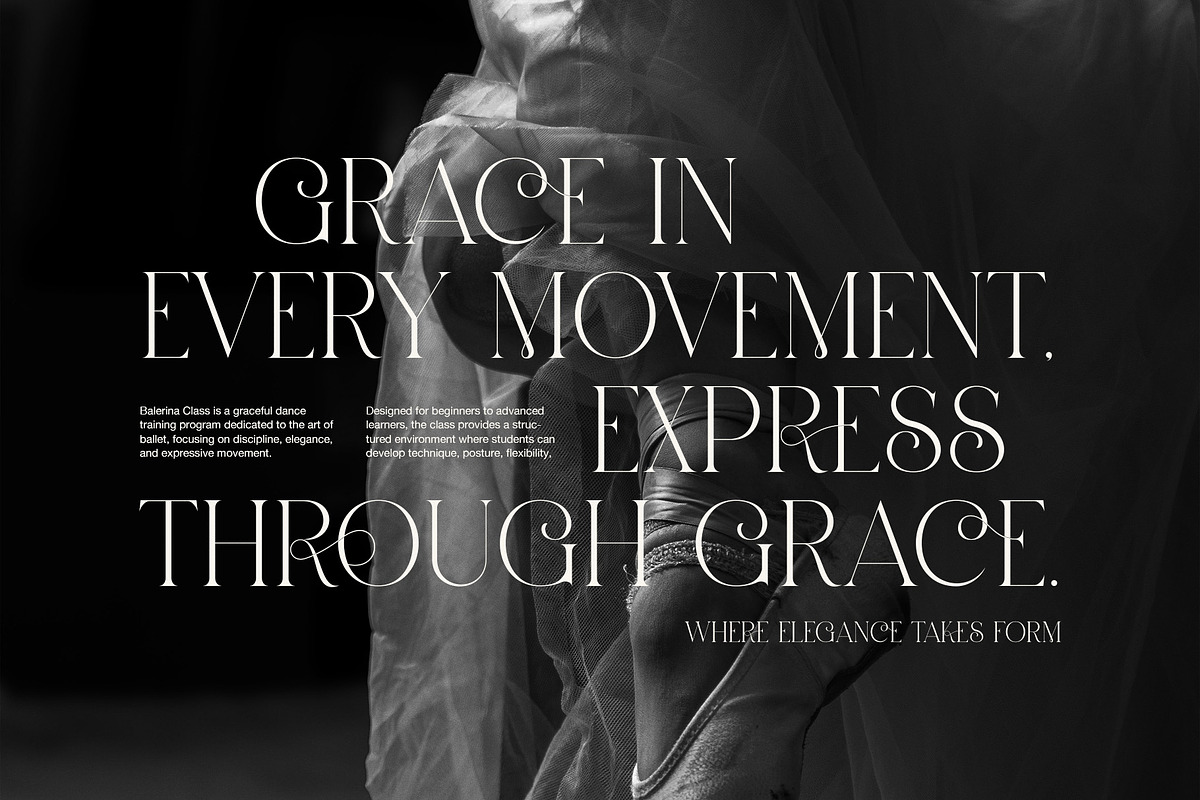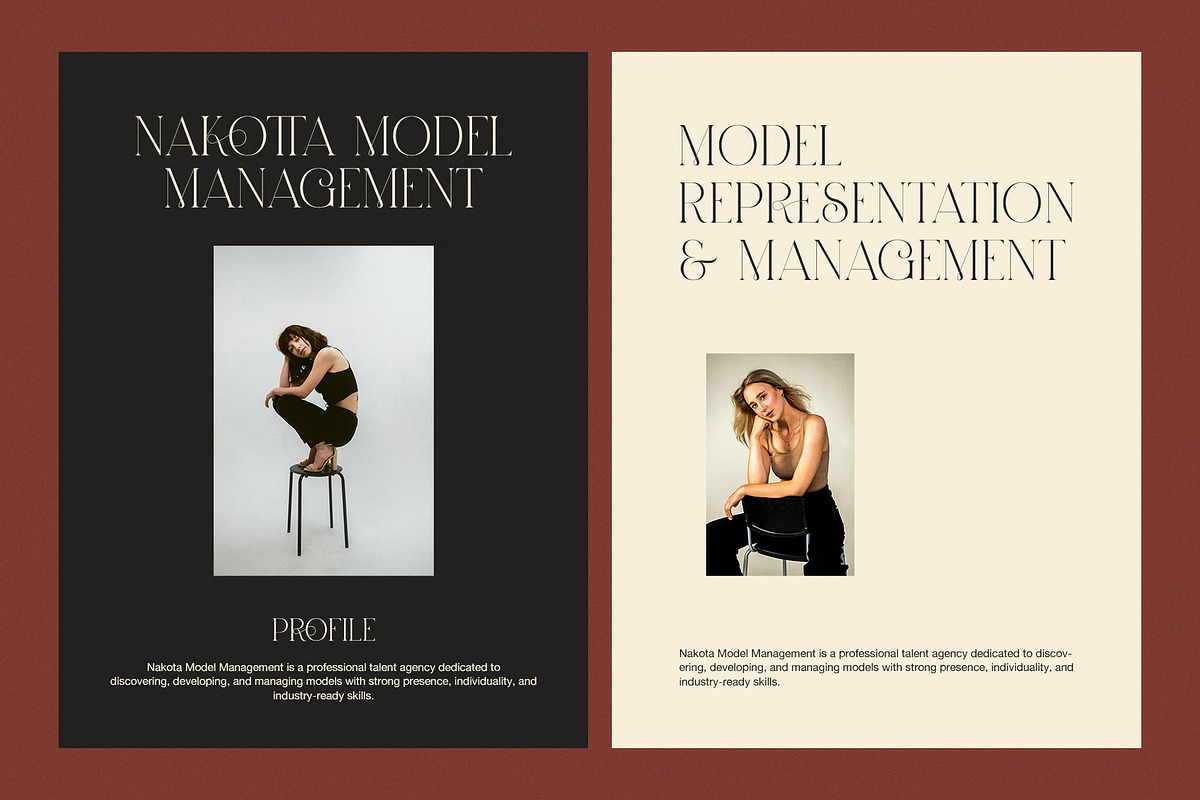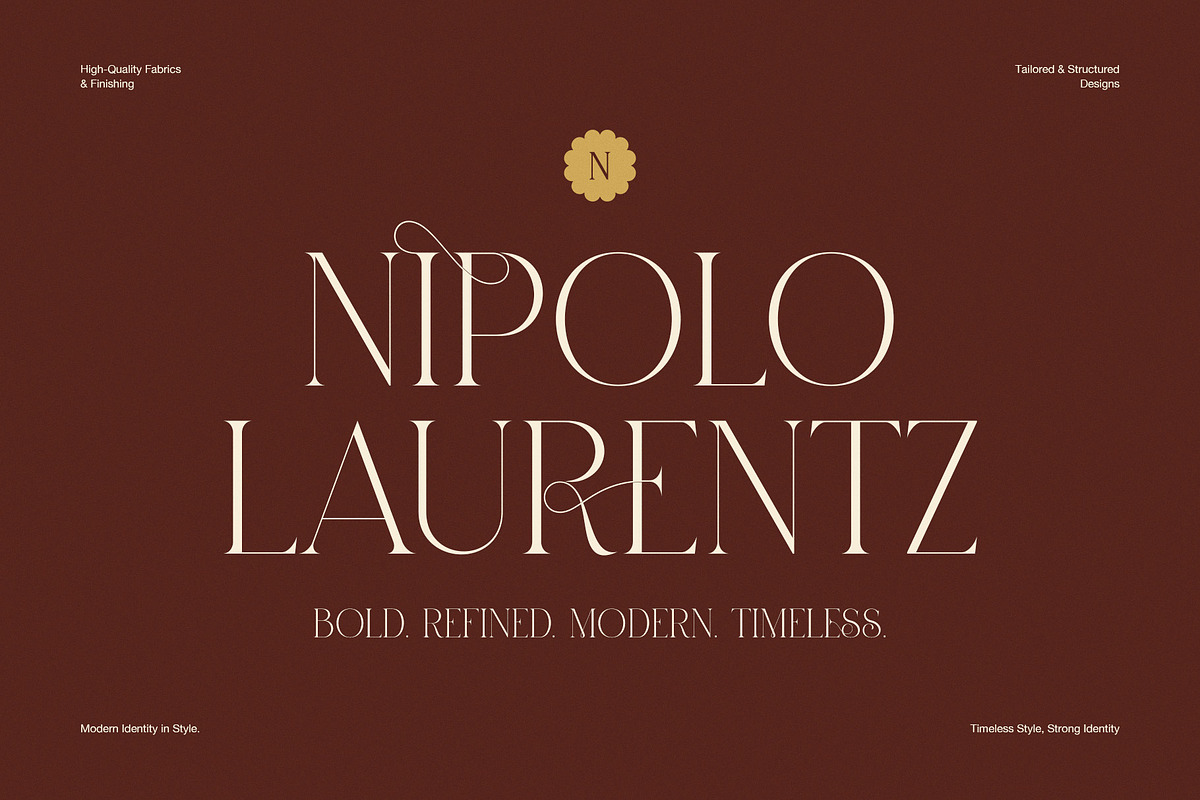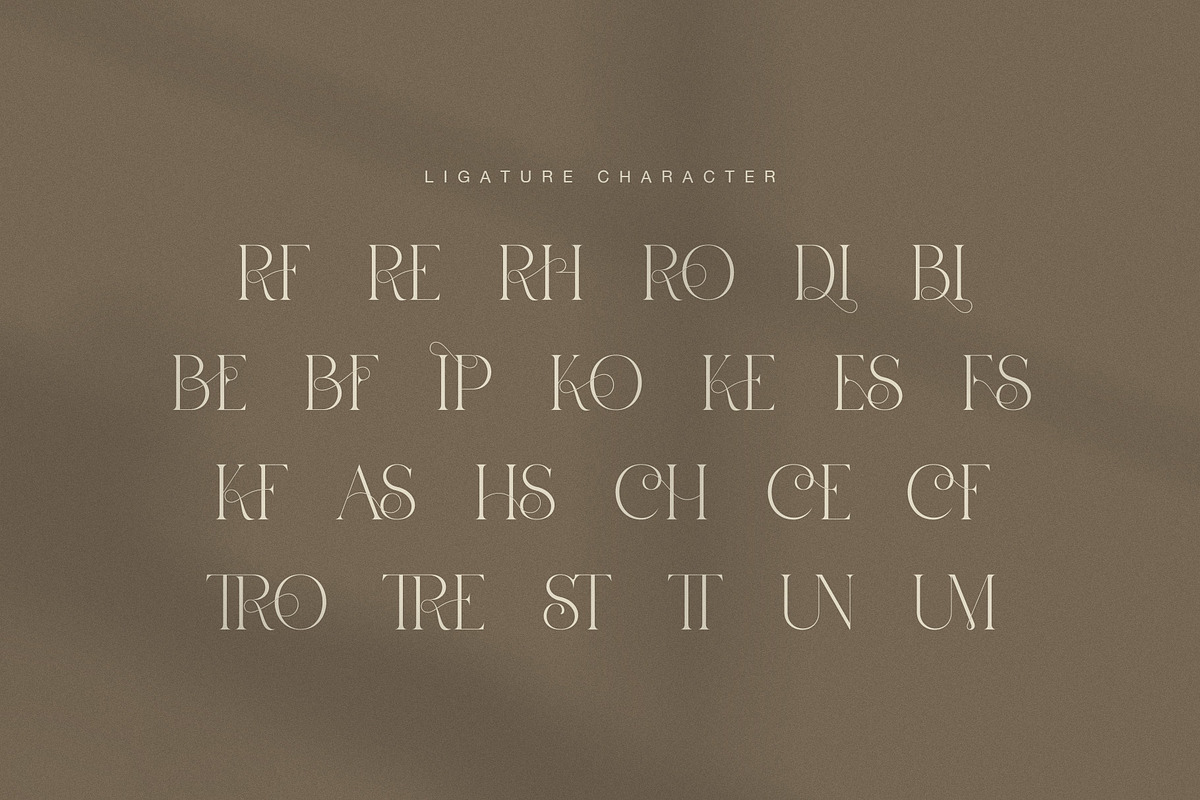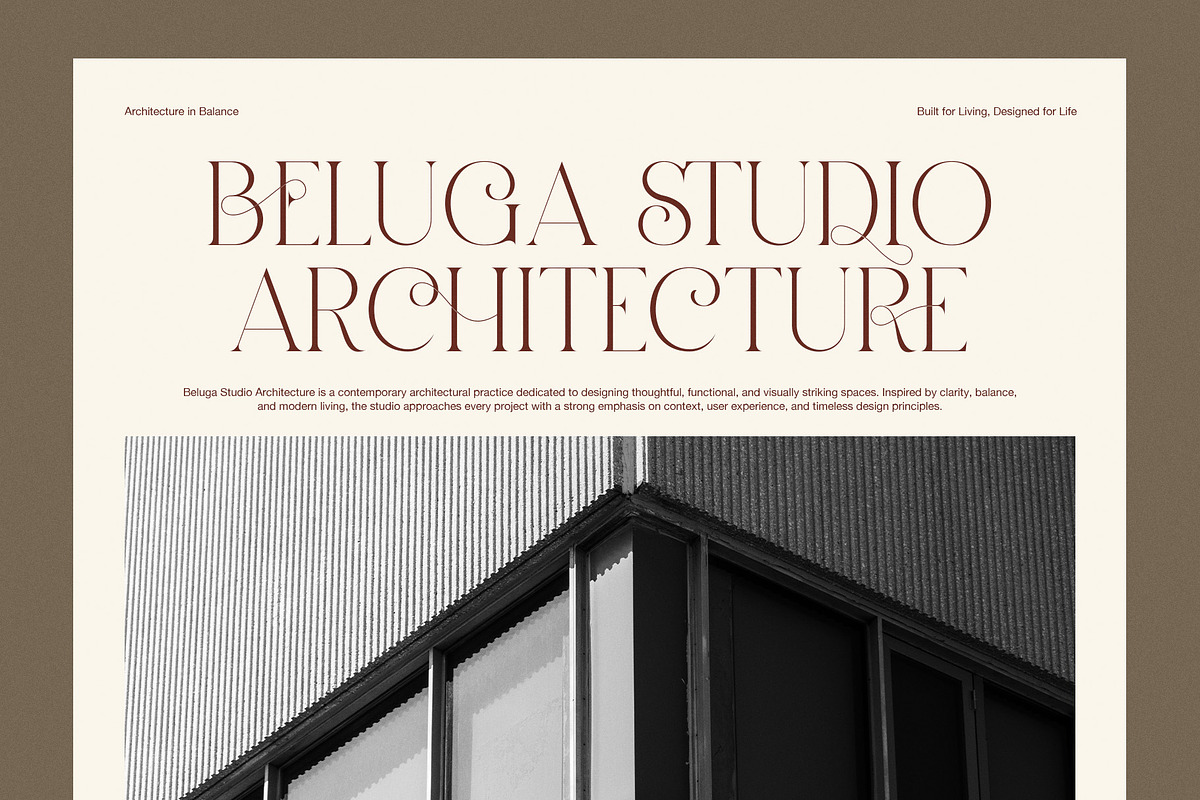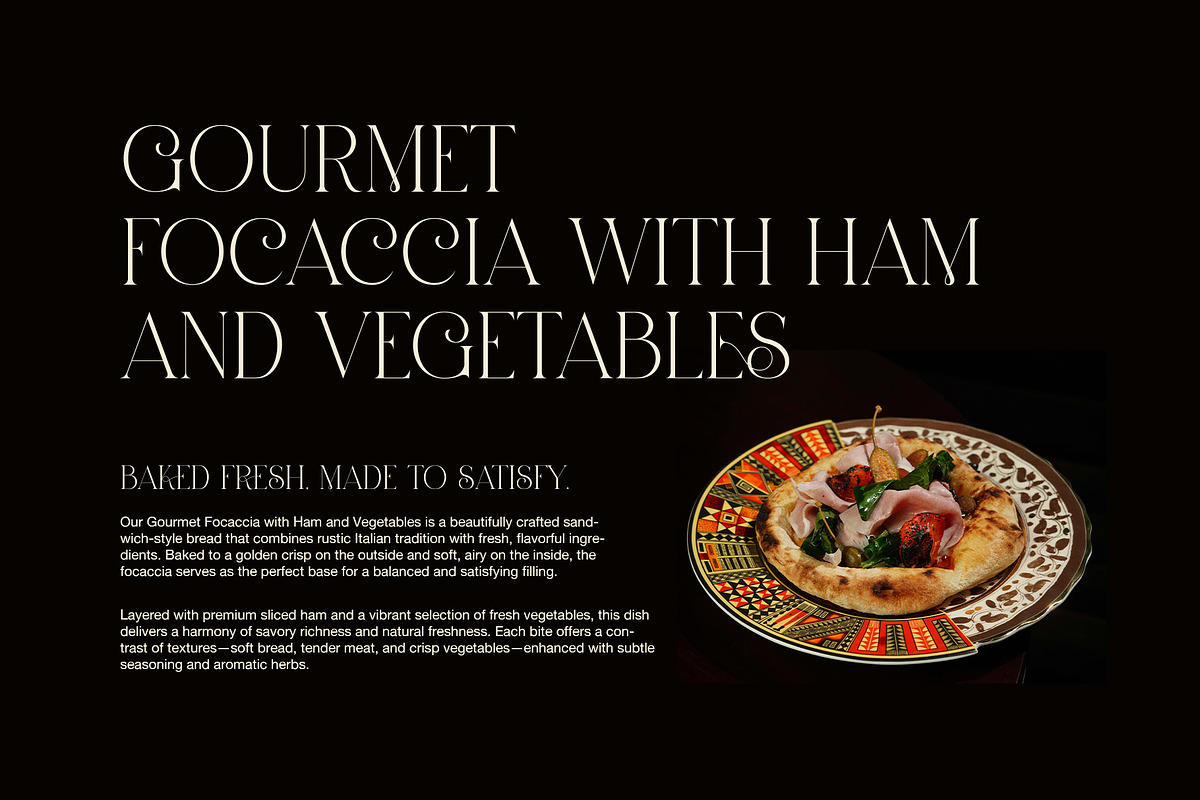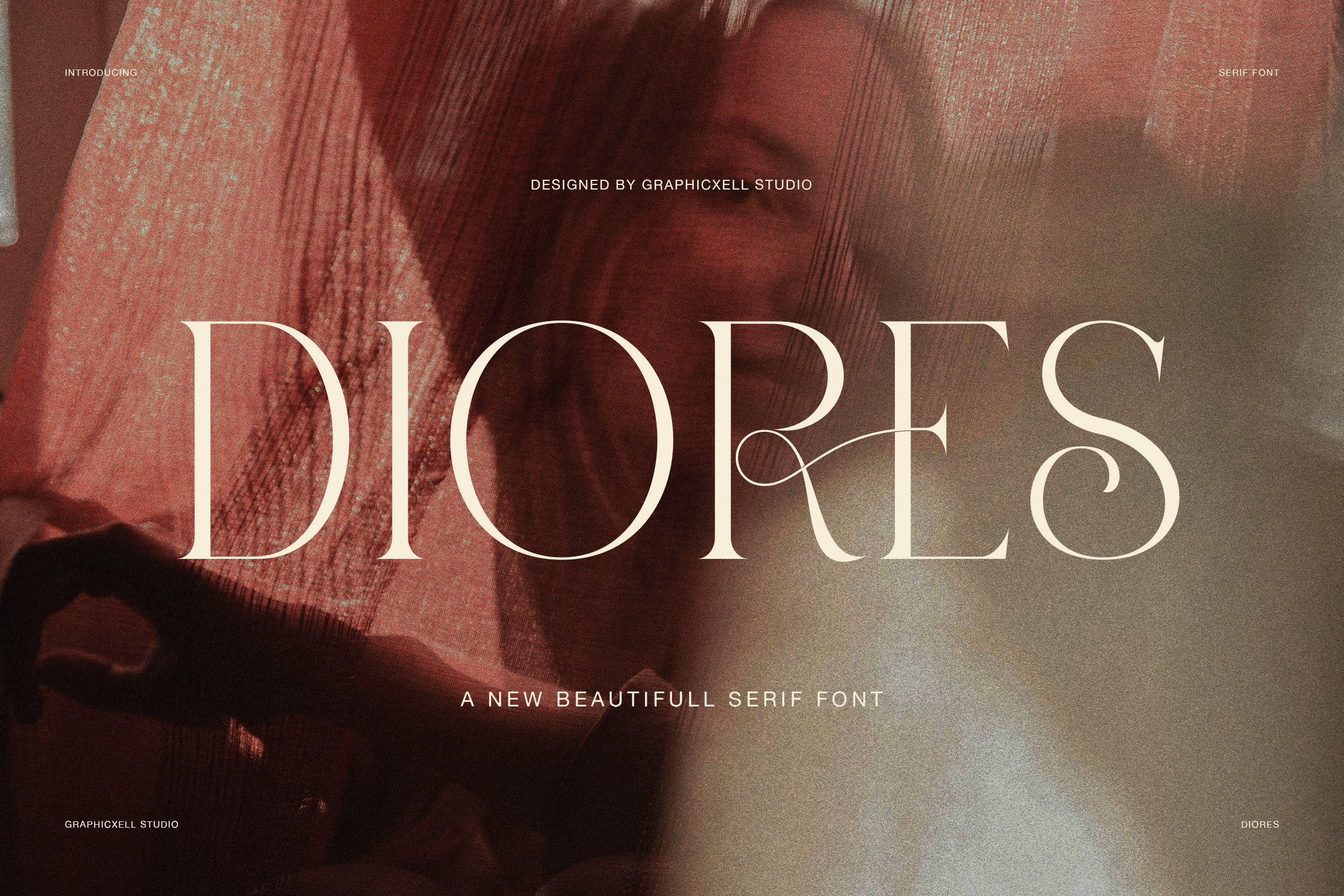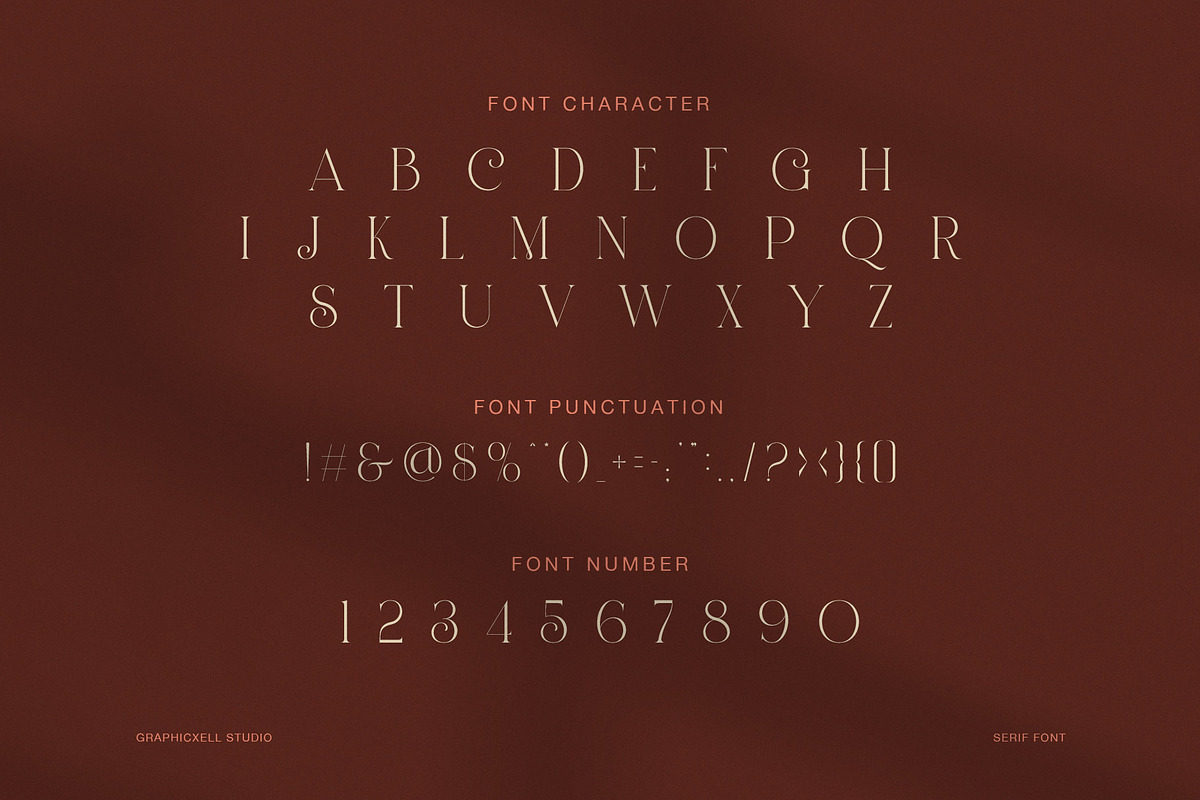
Diores Elegant Serif Font
Diores Elegant Serif Font is a refined display serif made for designers who want beauty, grace, and strong visual impact in one typeface. At first glance, it feels light and luxurious. Yet, the more you look, the more character it reveals. Its slim strokes, high contrast shapes, and flowing ligatures give every word a polished and artistic tone. Because of that, Diores is a strong choice for modern branding that wants to feel premium and memorable.
This font has a soft rhythm and a graceful structure. The tall letterforms look poised, while the thin lines add a calm and elegant mood. In addition, the decorative ligatures create movement without making the text hard to read. So, Diores feels expressive, but it still stays clean. That balance makes it useful for both bold headlines and refined identity work.
Diores is especially effective in large sizes. For example, it looks stunning in logos, fashion editorials, beauty branding, hotel identities, restaurant menus, luxury packaging, product labels, and magazine covers. Likewise, it works beautifully for architecture studios, model agencies, photography brands, and modern lifestyle campaigns. Since it carries a timeless look, it can suit both classic and current design styles.
Another strength of Diores is its elegant detail. The ligatures are not only decorative, but also helpful for creating custom-looking titles and wordmarks. Meanwhile, the overall spacing keeps the font airy and sophisticated. Therefore, layouts feel expensive, stylish, and well composed. Moreover, it pairs very well with minimal sans serif fonts, soft neutral palettes, and strong photography.
Why designers may choose Diores:
Elegant serif style with a luxury display feel
High contrast letterforms with a soft, refined mood
Beautiful ligatures for artistic headlines and logos
Ideal for fashion, beauty, editorial, and branding use
Clean structure that still feels expressive and special
Strong visual presence for premium design projects
Overall, Diores Elegant Serif Font is made for work that needs charm, clarity, and timeless style. It feels delicate, yet it stays confident. It feels classic, but it also fits modern design trends. As a result, this font can lift a simple layout into something more graceful and more valuable. If you need a luxury serif display font with beautiful ligatures and editorial appeal, Diores is a wonderful choice.